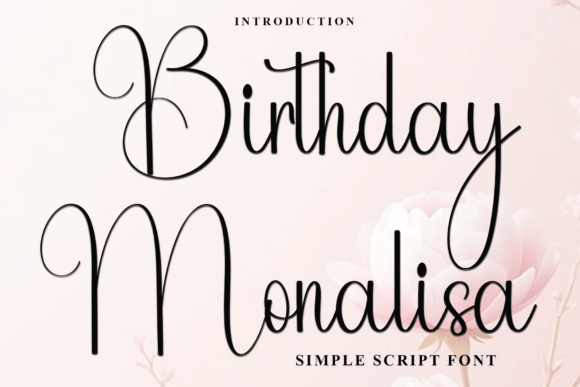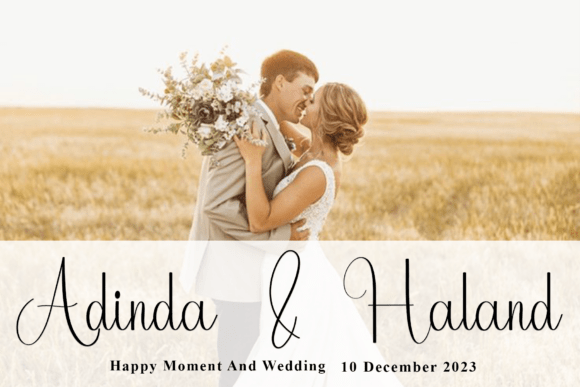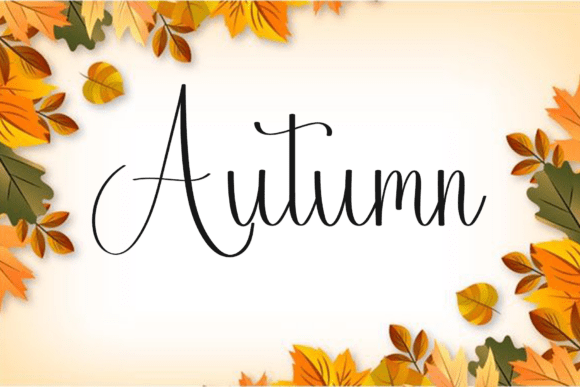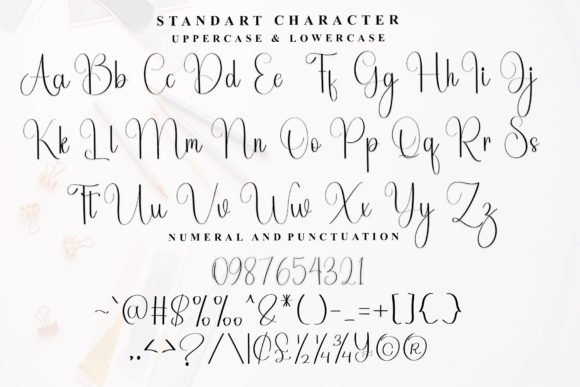
Birthday Monalisa Font
About the Birthday Monalisa Font
Let us introduce you to Birthday Monalisa Font, where timeless design meets modern craftsmanship. Birthday Monalisa is a beautiful and eye-catching font designed with a soft, unique touch. Its distinctive strokes give it a special character, making it meaningful and versatile for future use. With various characters, it’s perfect for design projects, crafts, and other creative works.